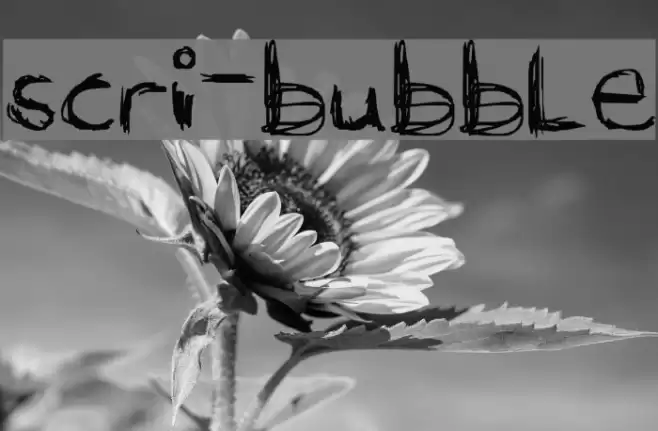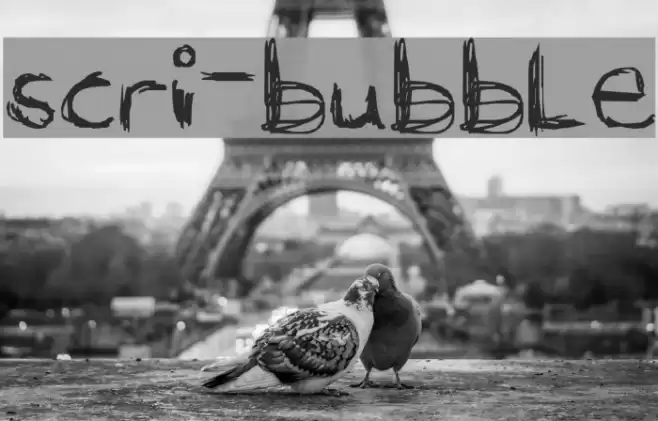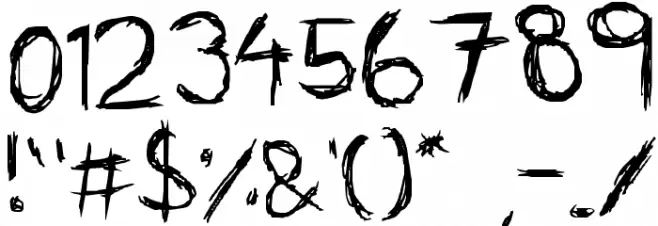
scri-bubble Font
scri-bubble Description
This font features a playful and dynamic handwritten style, characterized by its irregular and sketchy strokes. The letters have a spontaneous and energetic appearance, with varying thicknesses that give it a lively and informal feel. The uppercase and lowercase letters maintain a consistent style, while the numbers and special characters complement the overall aesthetic. This font's unique and artistic design makes it stand out, adding a touch of creativity and personality to any project.
- Proposed Projects: Ideal for creative projects such as children's books, comic strips, casual invitations, and artistic posters.